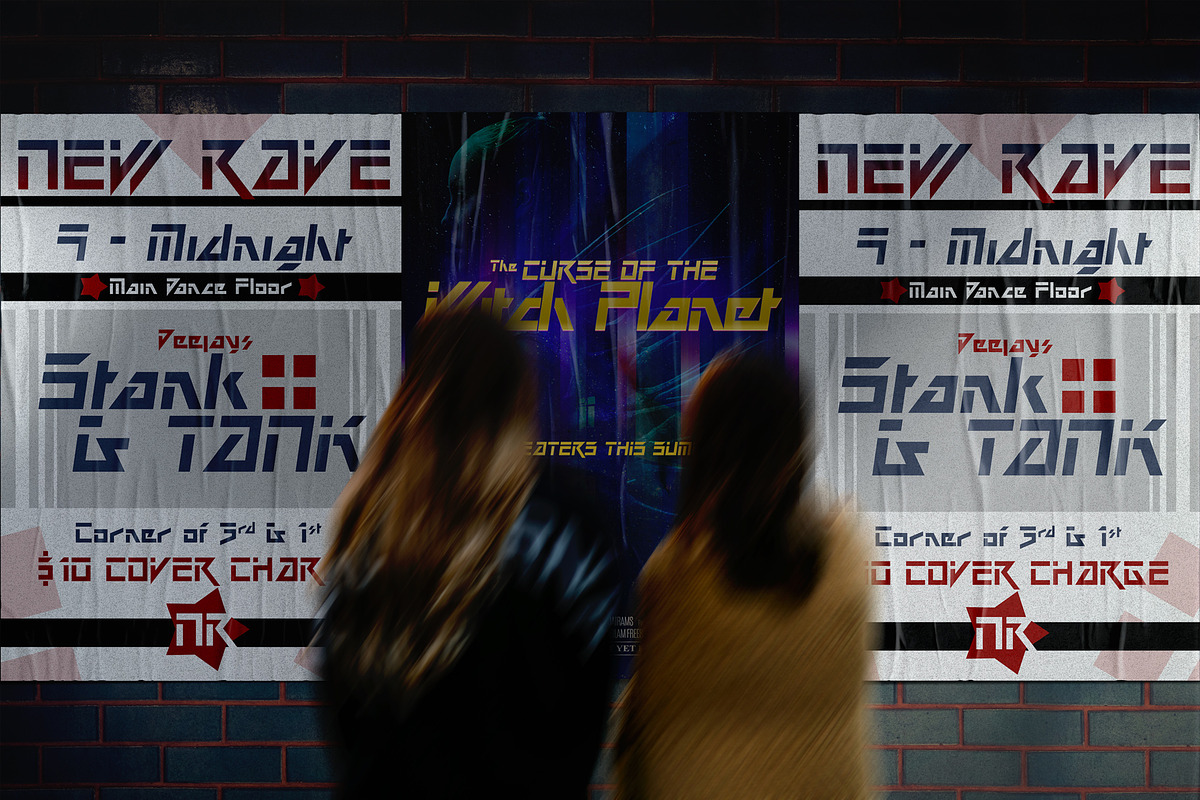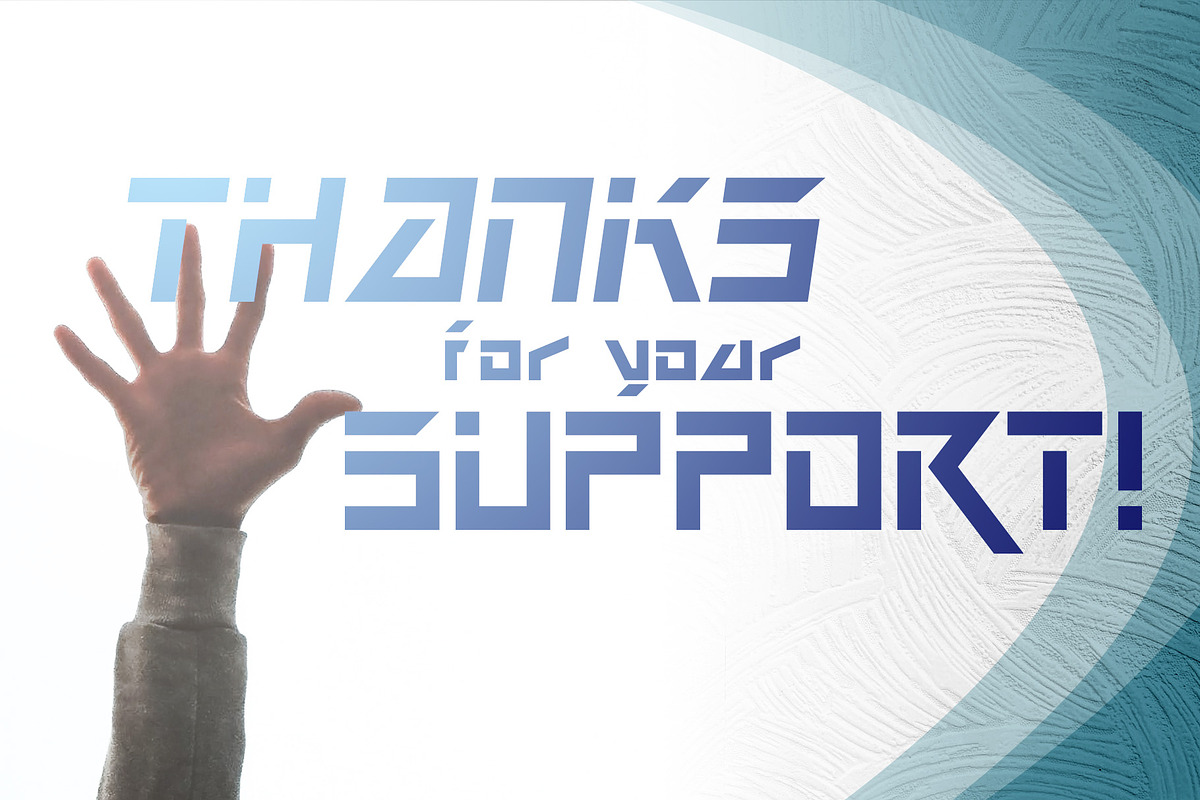
Dark Future
A lettering design for an old project recreated as a typeface. Stark, harsh, slanted letters that can be used for Sci-Fi or tech dystopian projects. Includes regular and oblique versions.